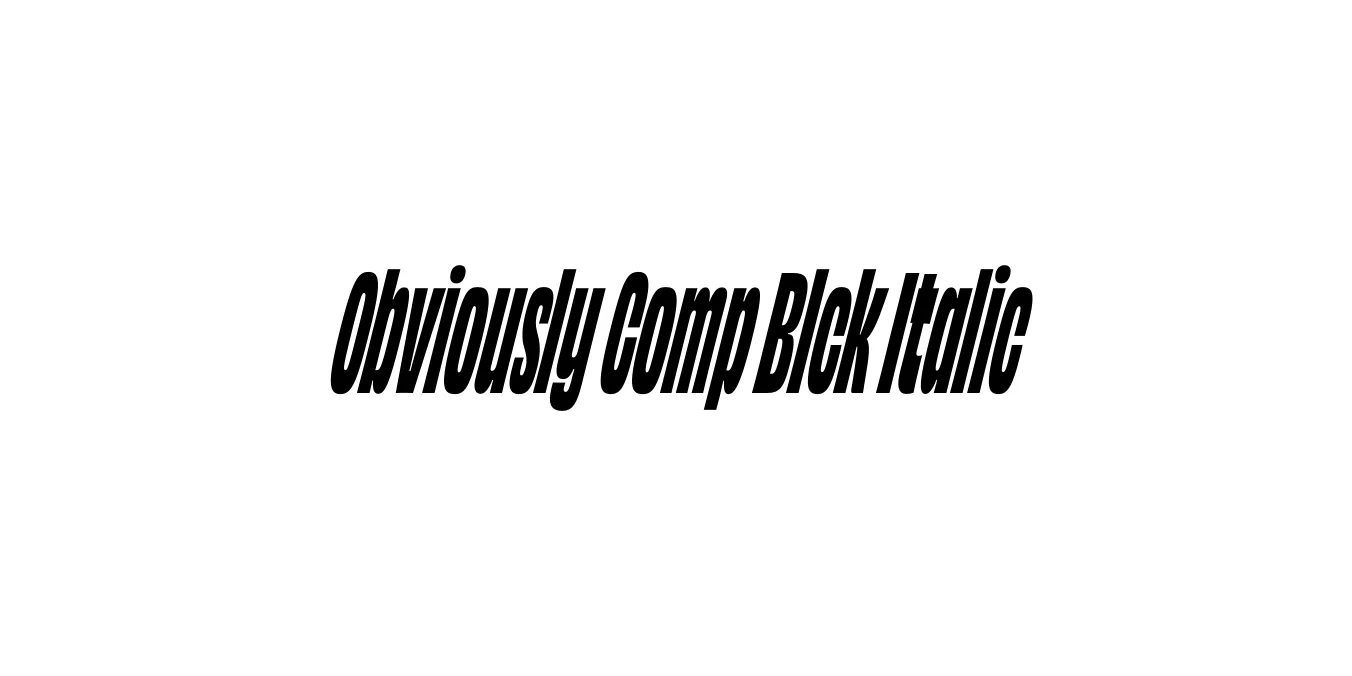
Obviously Comp Blck Italic
Designed by James Edmondson
| Category | Display Sans-Serif |
| Designer | James Edmondson |
Obviously Compressed Black Italic is a striking display typeface designed by James Edmondson of Ohno Type Co. It is a part of the massive Obviously family, which was created to explore the extremes of width and weight. This particular variant captures a rare combination of brutalist strength and sophisticated geometry, drawing inspiration from the history of wood type and mid-century advertising where space was a premium but visibility was paramount.
The design features ultra-tight counters and a dramatic italic slant that provides an intense sense of forward motion and urgency. Obviously Comp Blck Italic excels in environments that require a loud, authoritative voice, making it a favorite for contemporary editorial design, sports branding, and high-impact digital marketing. Its construction balances the rigid constraints of a compressed width with the organic curves typical of Edmondson’s signature style.
Obviously Comp Blck Italic Best Uses
Perfect for magazine covers and news headers where vertical space is limited.
Ideal for creating dynamic, high-energy logos and jerseys.
Commands attention in large-scale prints and street-level advertising.
Excellent for bold, short text overlays on high-contrast backgrounds.